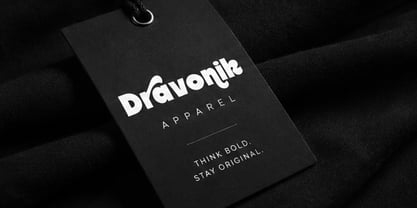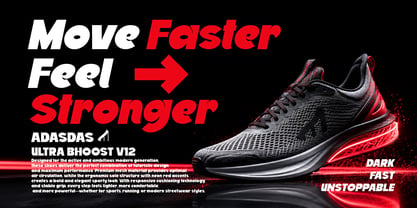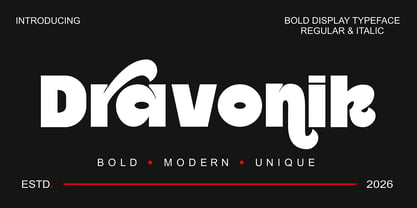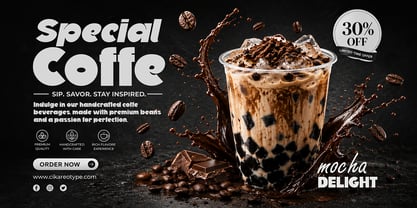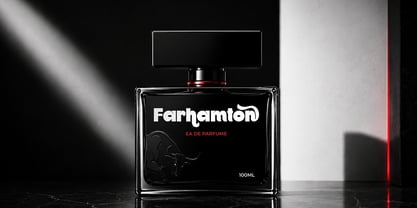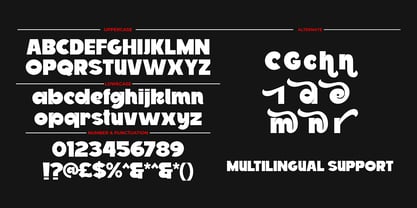
Dravonik
The Dravonik Font Family was designed by Sipanji and published by Sipanji21. Dravonik contains 2 styles and family package options. More about this family
Introducing Dravonix; a modern, bold, and elegant typeface designed with geometric precision and luxurious detailing. This unique creation reflects contemporary aesthetic flair with its dynamic structure and powerful personality. Dravonix encapsulates the ideals of trend-setting design elements found in fashion branding, futuristic designs, and cutting-edge tech visuals. Every character in the Dravonix family is meticulously crafted to offer superior readability while retaining a distinctive visual identity.
This bold typeface commands attention, adding instant impact to logos, website headers, posters, and packaging designs. It strikes a balance between artistic creativity and geometric precision, giving it a futuristic yet highly versatile appeal across various creative industries.
The Dravonix style catalog includes Regular and Italic styles, delivering balanced proportions and dynamic movement for exceptionally expressive compositions. To give designers more options, Dravonix also offers uppercase and lowercase characters, numbers, stylistic alternates, and multilingual support. The resulting typography effortlessly blends artistry with state-of-the-art design, creating a visual identity that turns simple words into confident and bold statements.
Dravonix is crafted for everyday use in areas such as modern logos and luxury brands, as well as for stunning editorial headlines and immersive social media graphics. The strong visual hierarchy achieved by this design can create impactful promotional visuals, effective branding systems, and engaging digital compositions.
Dravonix thrives amid minimalist layouts, luxury branding enviroments, futuristic aesthetics, and modern editorial compositions. Its multilingual support expands creative possibilities, proving invaluable for global branding.
Whether adorning hero headlines, luxury campaigns or fashion posters, Dravonix remains a beacon of modern elegance and style. It consistently transforms simple text into impactful compositions, ready to turn heads and claim attention in any contemporary design project.
Experience the power and flexibility of Dravonix; a perfect blend of strong typography, artistic styling, and sophisticated design for creators looking to leave a memorable mark.